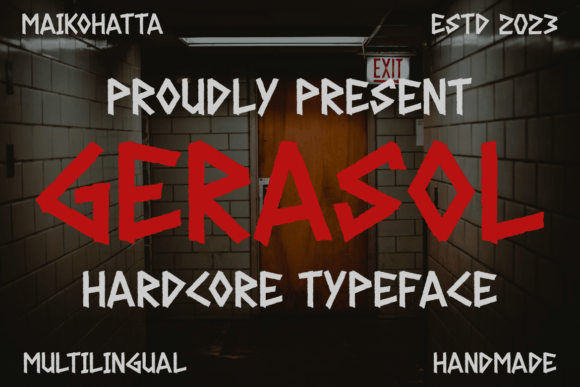
Prepare yourself to embark on a typographic adventure with Gerasol – a hardcore font family that radiates strength, boldness, and an aggressive charm. This modern font, meticulously crafted by Maikofarazhatta, seamlessly blends contemporary aesthetics with the essence of hardcore typography. Its sharp lines, dynamic shapes, and captivating aura are sure to leave a lasting impact on your designs.
With Gerasol, you'll discover a font that exudes power and energy. Its robust characters, inspired by the raw and unyielding spirit of hardcore culture, command attention and convey a sense of urgency. Unleash your creativity and use Gerasol to craft music logos that resonate with intensity, posters that demand attention, and headlines that ignite passion.
Dive into the world of Gerasol and explore the boundless possibilities it offers. Experiment with uppercase and lowercase characters, and harness the multilingual capabilities to create designs that transcend linguistic boundaries. Whether you're a seasoned designer or just starting your typographic journey, Gerasol is your ultimate weapon to create designs that resonate with power and leave an indelible mark.
Don't settle for ordinary fonts. Embrace the audacity of Gerasol and watch your designs transform into masterpieces of visual impact. Its modern hardcore style is the perfect choice for those seeking to make a statement, to break free from the mundane, and to leave an imprint of boldness and strength.